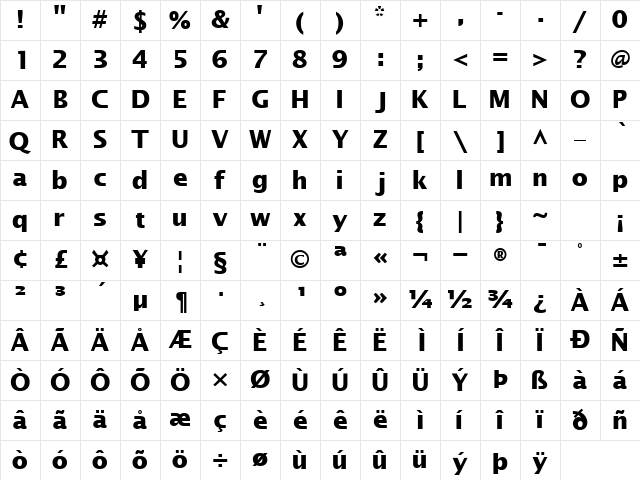
MachadoSansSSK Bold
Design Context for MachadoSansSSK
MachadoSansSSK is a composed and adaptable typeface that performs quietly and consistently across a wide range of design contexts. Its bold stroke weight gives it real presence on the page.
Pro Tip: Use MachadoSansSSK in both headline and body roles to test its range before committing to a single application.